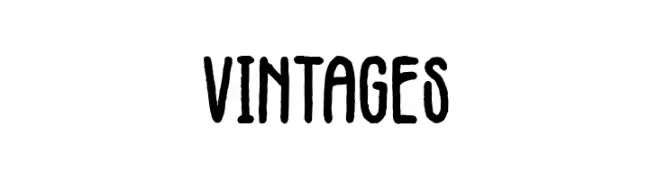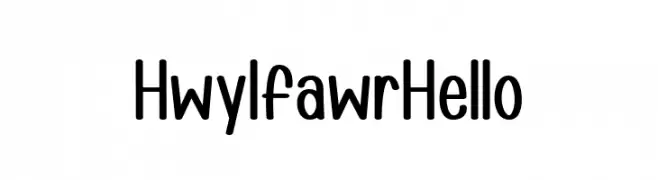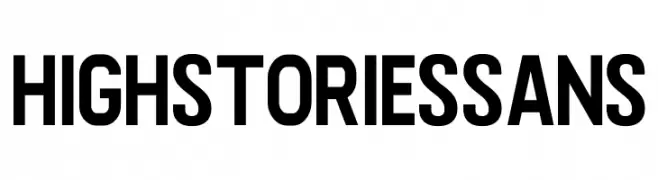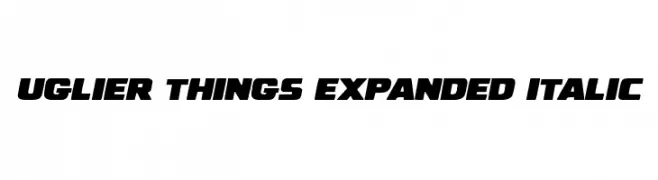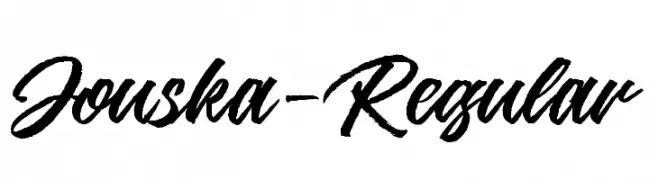
A bold, brush-style font with dynamic strokes and artistic flair.
A modern, geometric sans-serif font with clean lines and balanced proportions.
A playful, handwritten font with rounded edges and a casual style.
A bold, modern sans-serif font with high contrast and clean lines.
A bold, playful font with a hand-drawn, whimsical style.
Bold, italic, and expanded font with a dynamic and energetic style.
A bold, futuristic font with sharp angles and a dynamic stance.